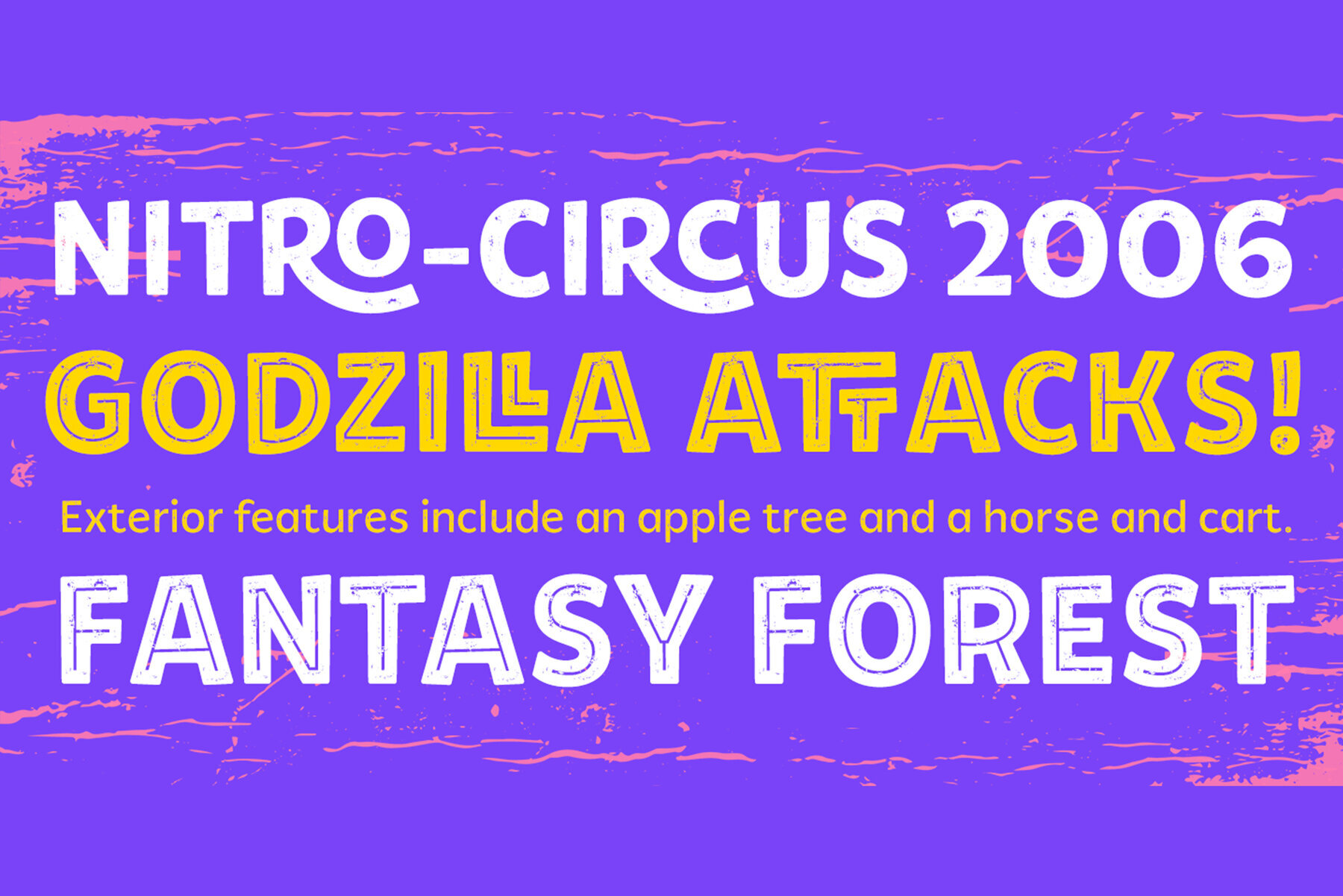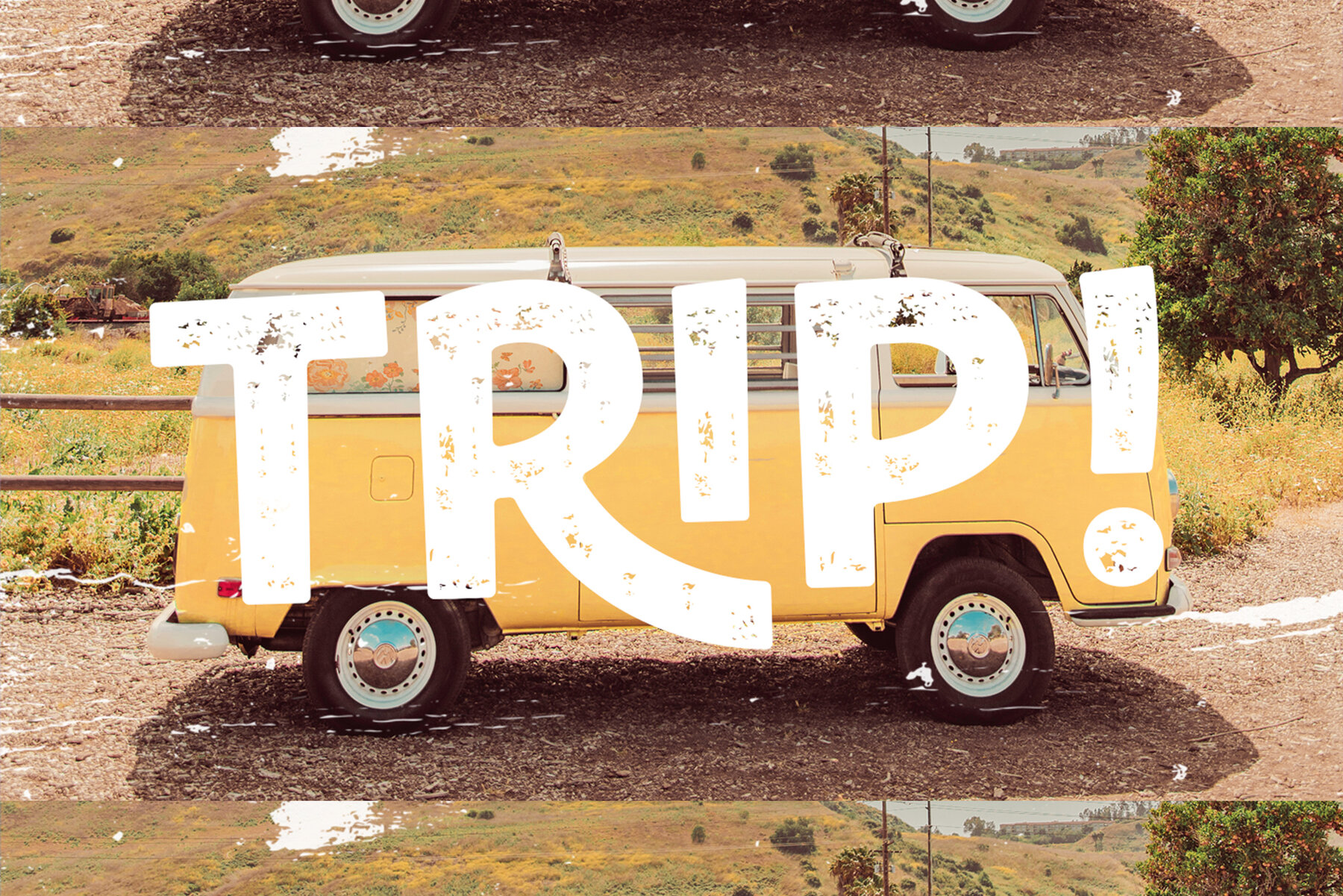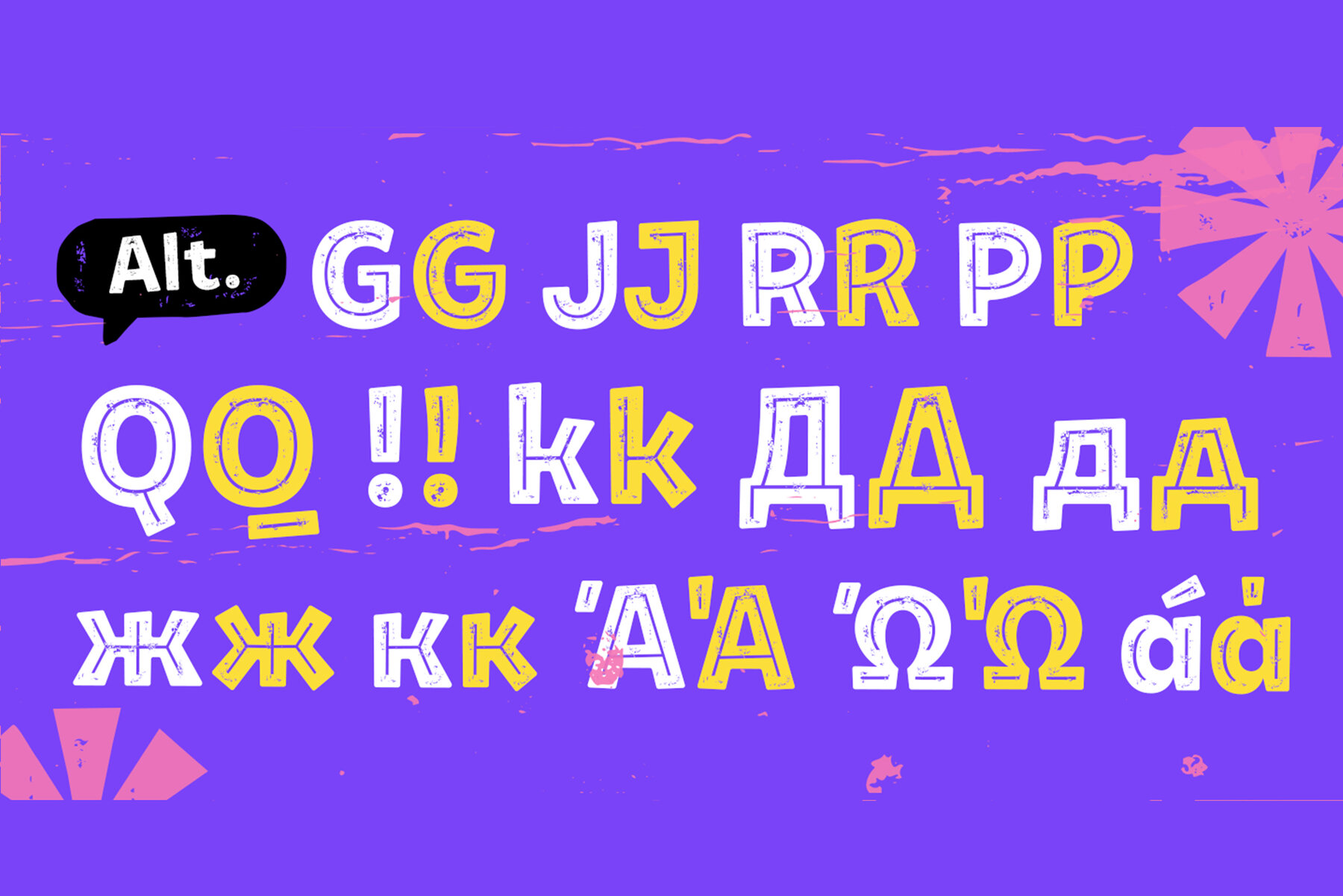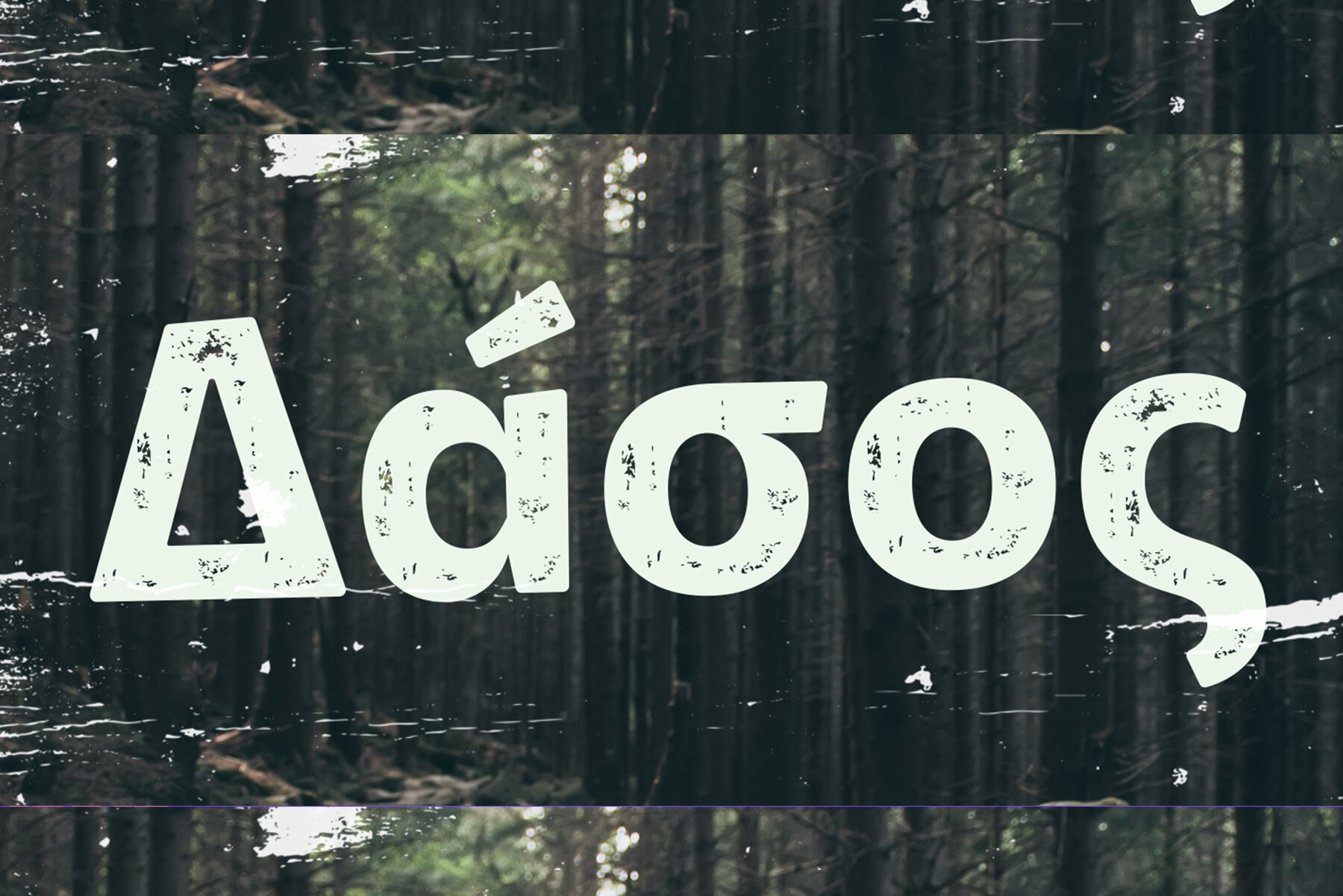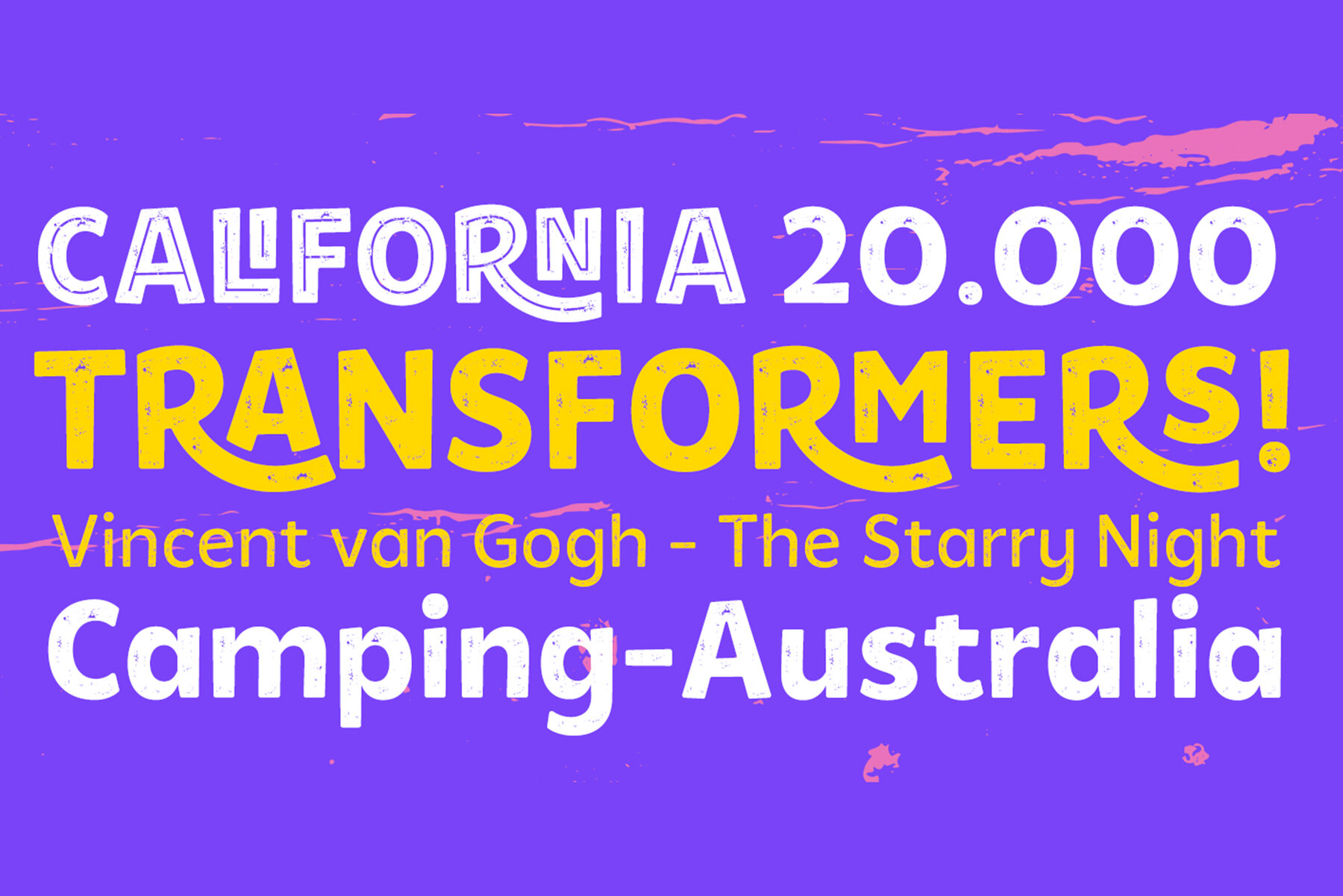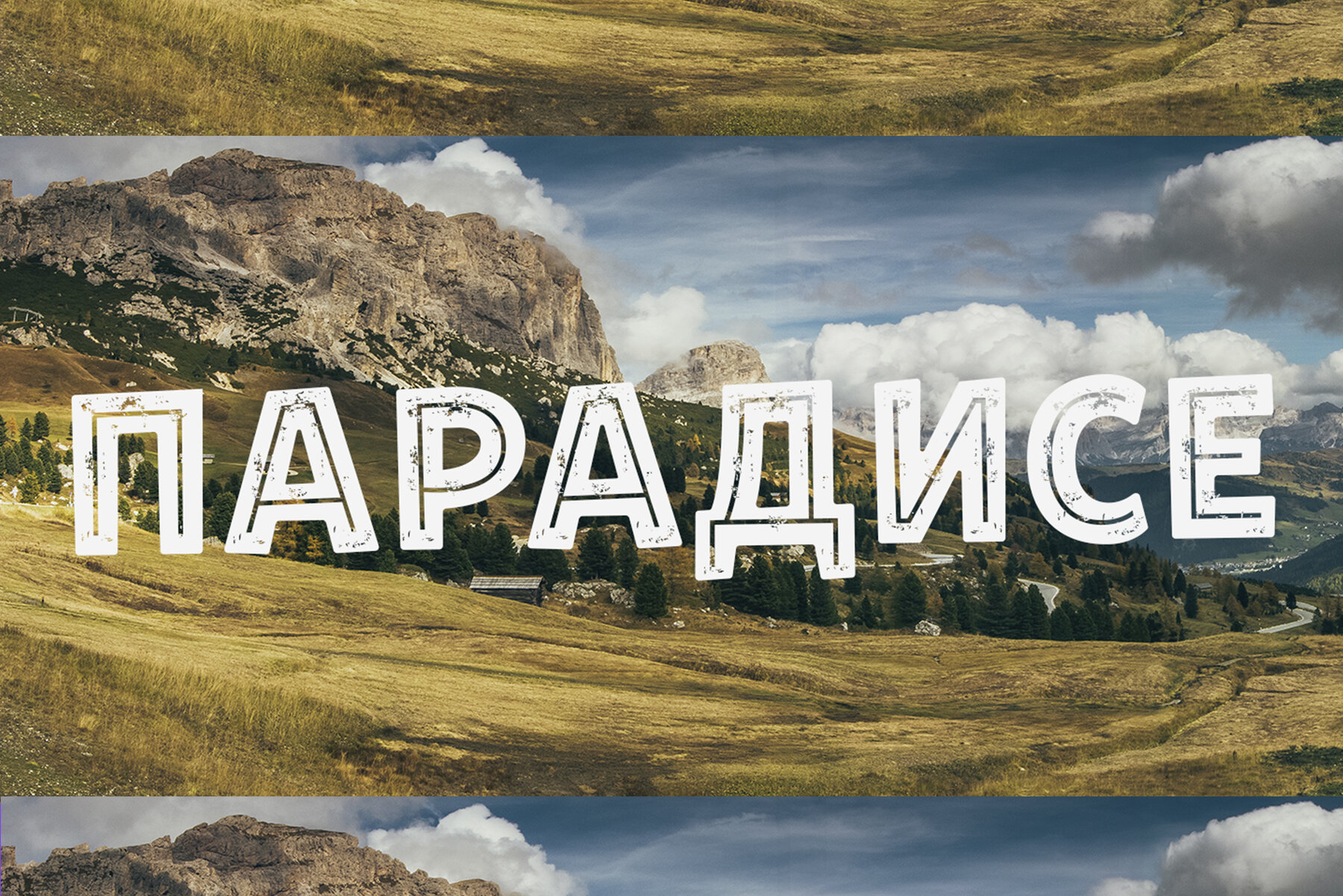
Tobi Oxide Font
Tobi Oxide" is a unique and versatile typeface that combines rough elements with an alternative version that includes Greek and Cyrillic characters.